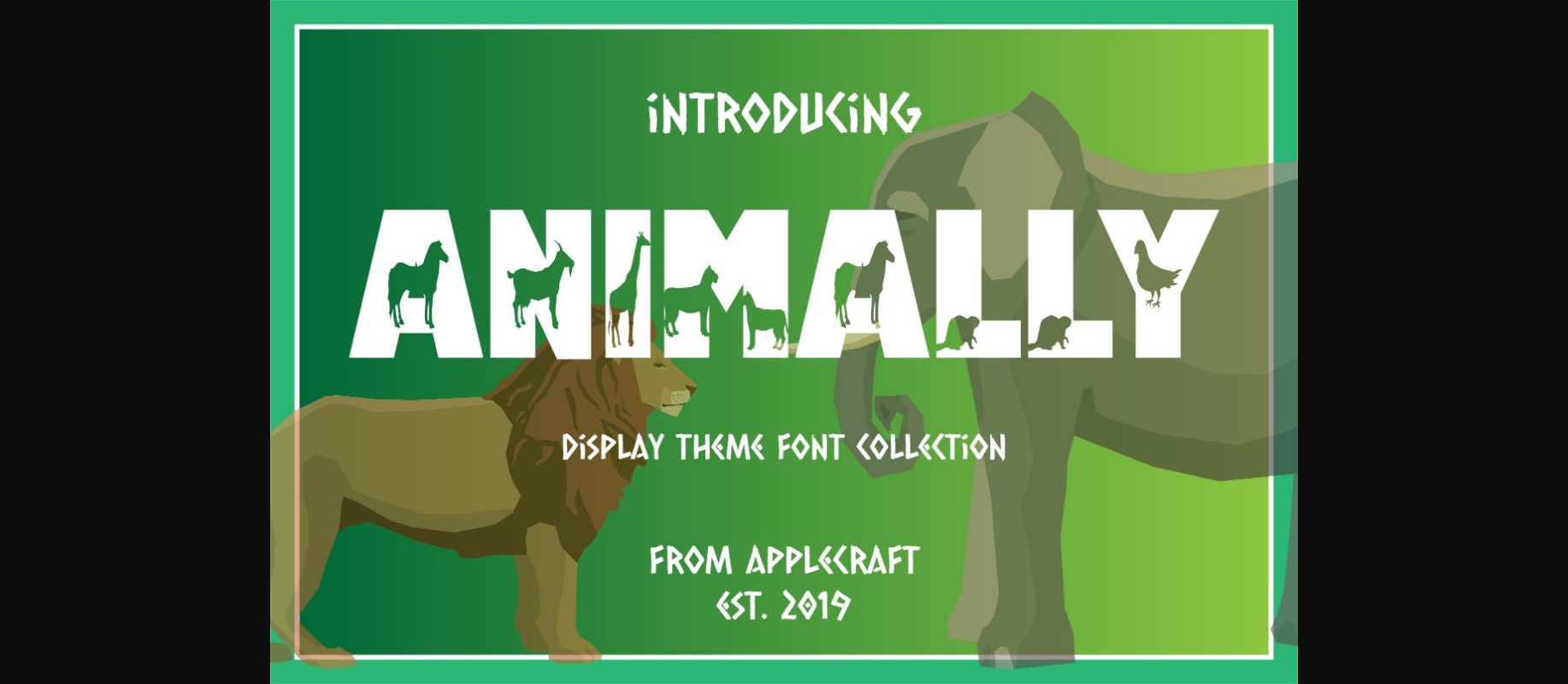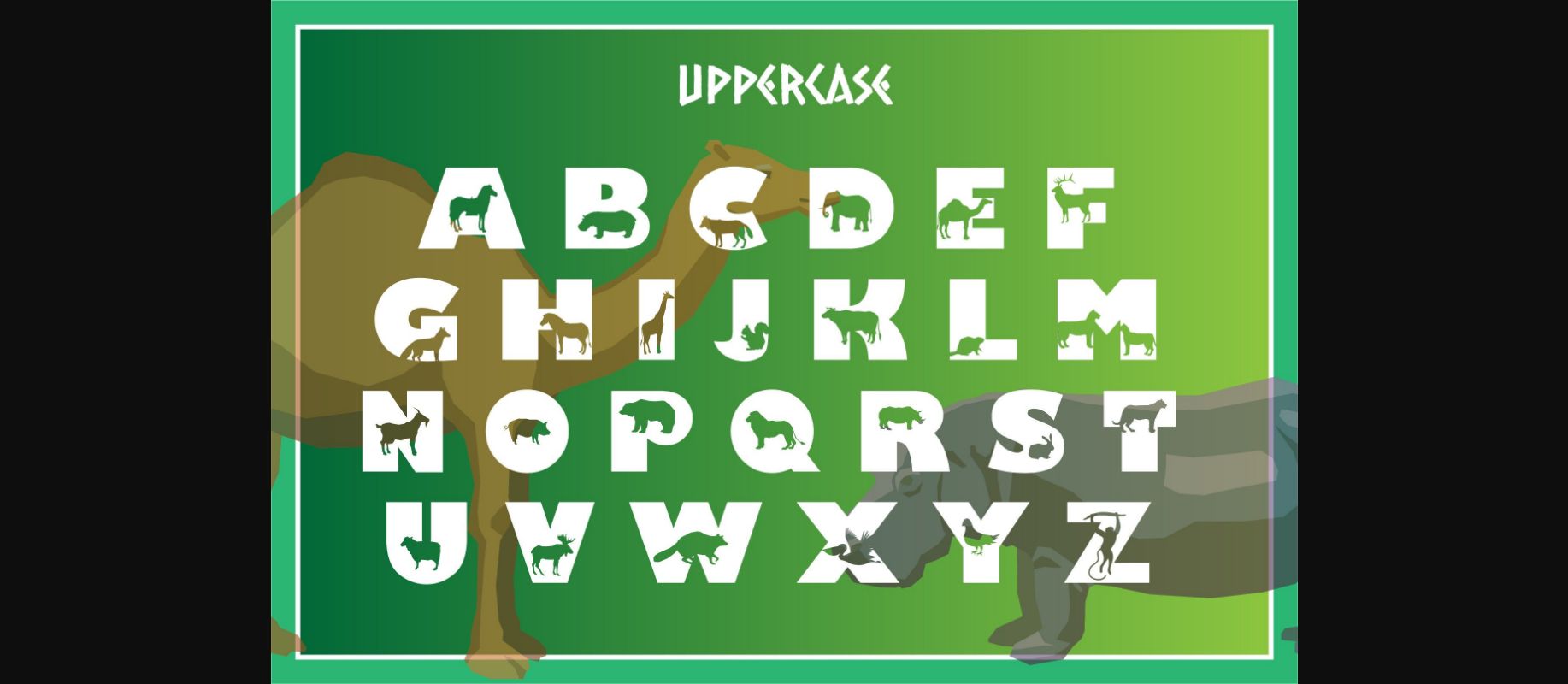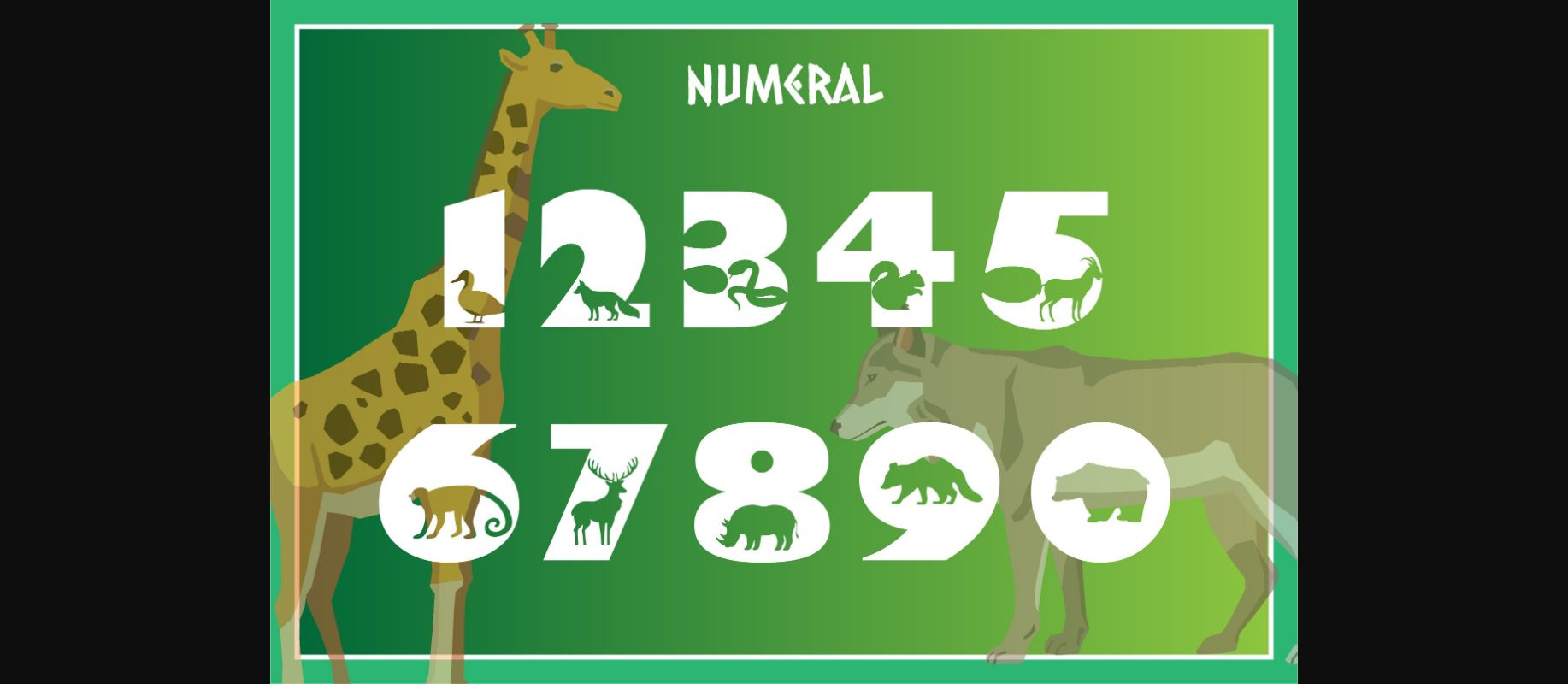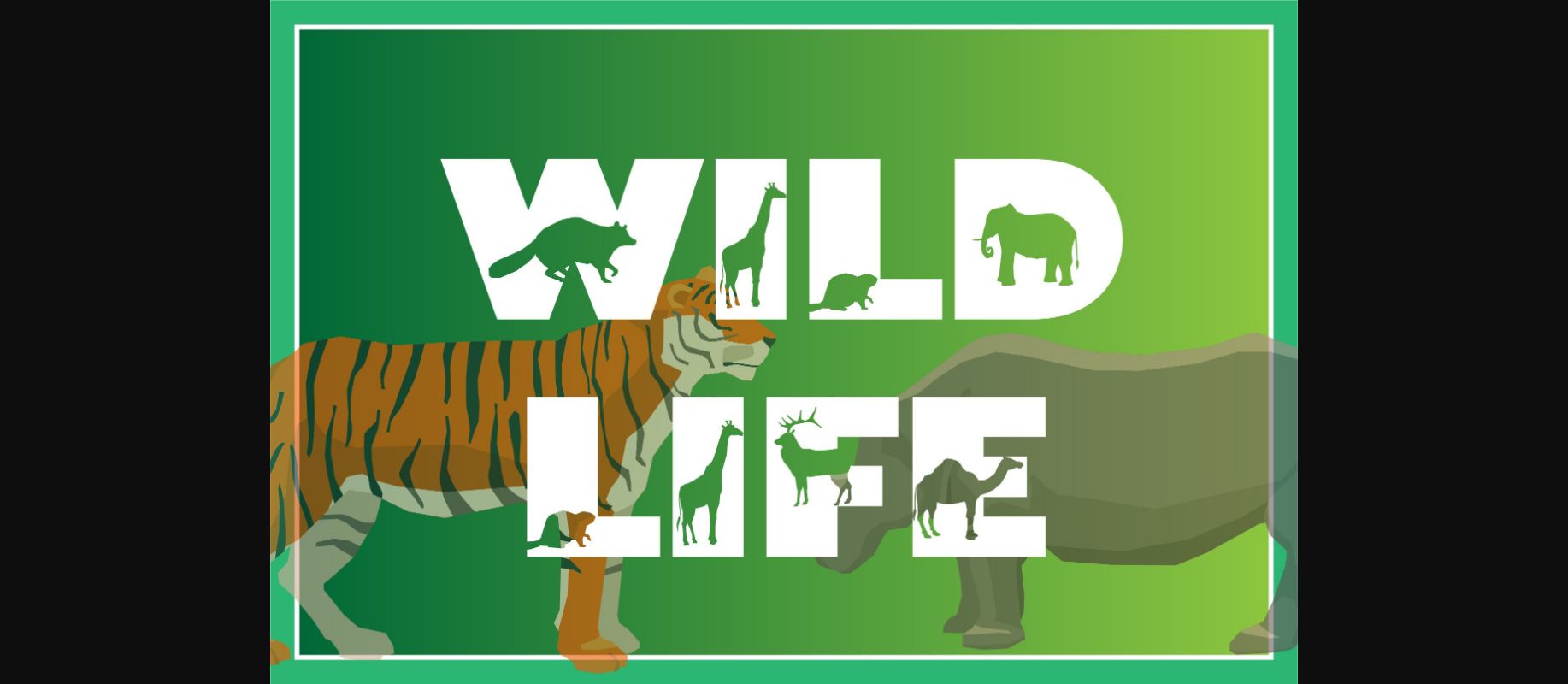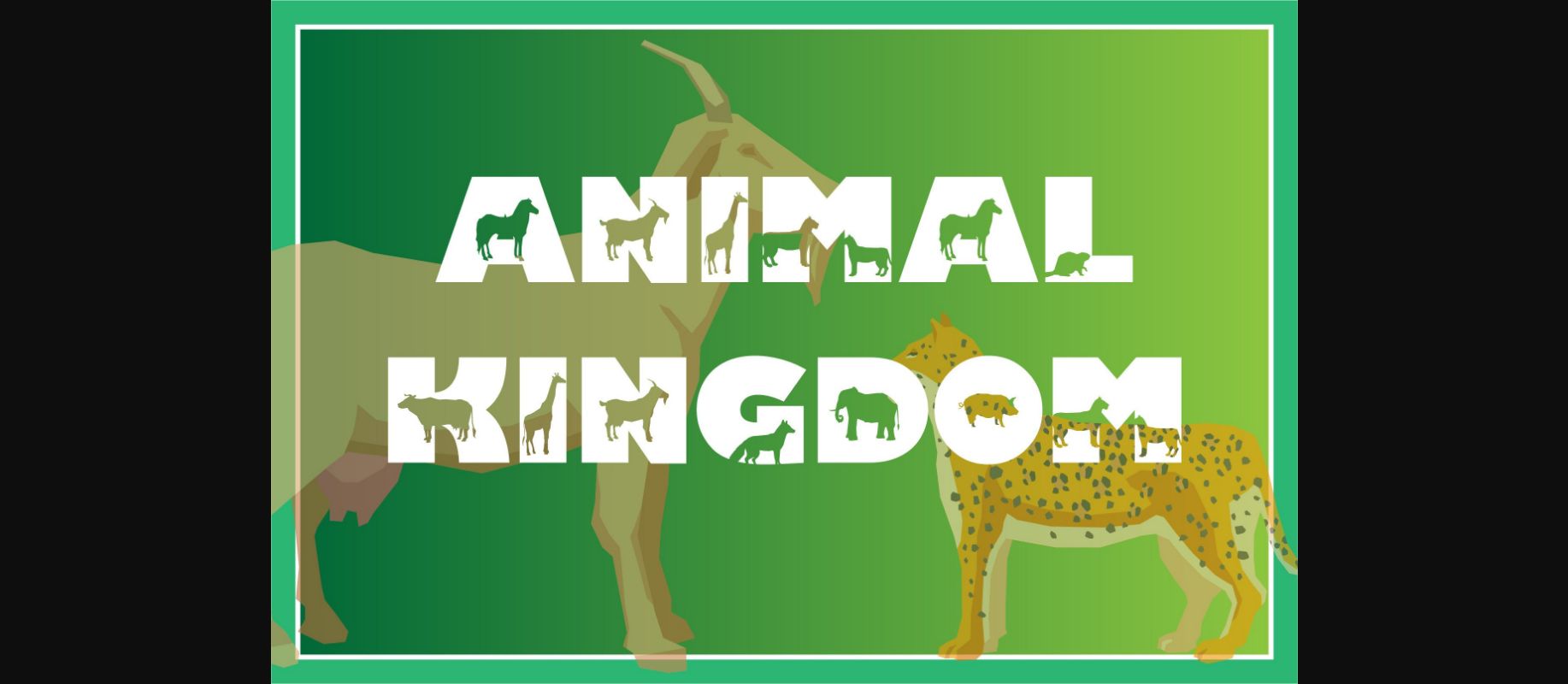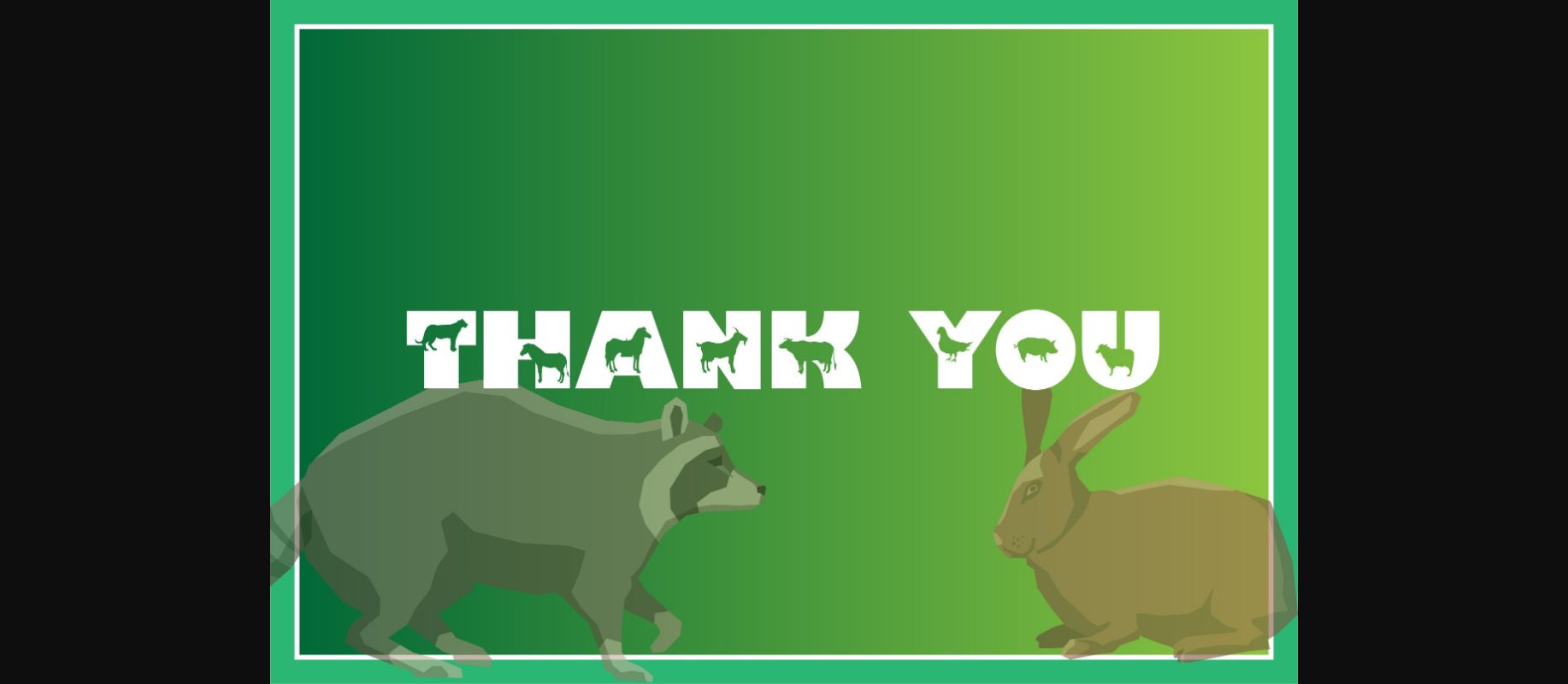
HomeDecorative FontsAnimally Font Decorative Fonts Animally Font FacebookXPinterestWhatsApp 1 of 8 ... Animally Font Poster 2... Animally Font Poster 3... Animally Font Poster 4... Animally Font Poster 5... Animally Font Poster 6... Animally Font Poster 7... Animally Font Poster 8... About Animally Font Animally is a font with fun creature silhouettes infused in the letters. Perfect for any woodland themed parties or decor. DOWNLOAD NOW People also explored Daytona Font Nasi Goreng Font Libero Font Trendsetter Font Eksellena Font Sharp Teeth Font Berlinsa Font Cheerful Face Font Zombie Vaccine Font 322 0 TagsAnimally Font Previous articleNarsis FontNext articleRoyals Monogram Font LEAVE A REPLY Cancel reply Comment: Please enter your comment! Name:* Please enter your name here Email:* You have entered an incorrect email address! Please enter your email address here Website: Save my name, email, and website in this browser for the next time I comment. Personal Use Free Oaklevin Personal Use Free Read more about this font Equalizer Script Personal Use Free Read more about this font Vogue Font Personal Use Free Read more about this font Vinograd Personal Use Free Read more about this font BLOG Where to Buy American Fonts Online in 2024 Where to Buy American Fonts Online: The Ultimate Guide for 2024 Looking for the perfect American font to elevate your design projects? You're in the... How to Install and Use Fonts on Windows, macOS, and Web Projects Transform Your Website: Elevate Your Typography with 7 Best Web Font Generators Free vs Paid Fonts: Why Investing in Premium Fonts Is Worth It